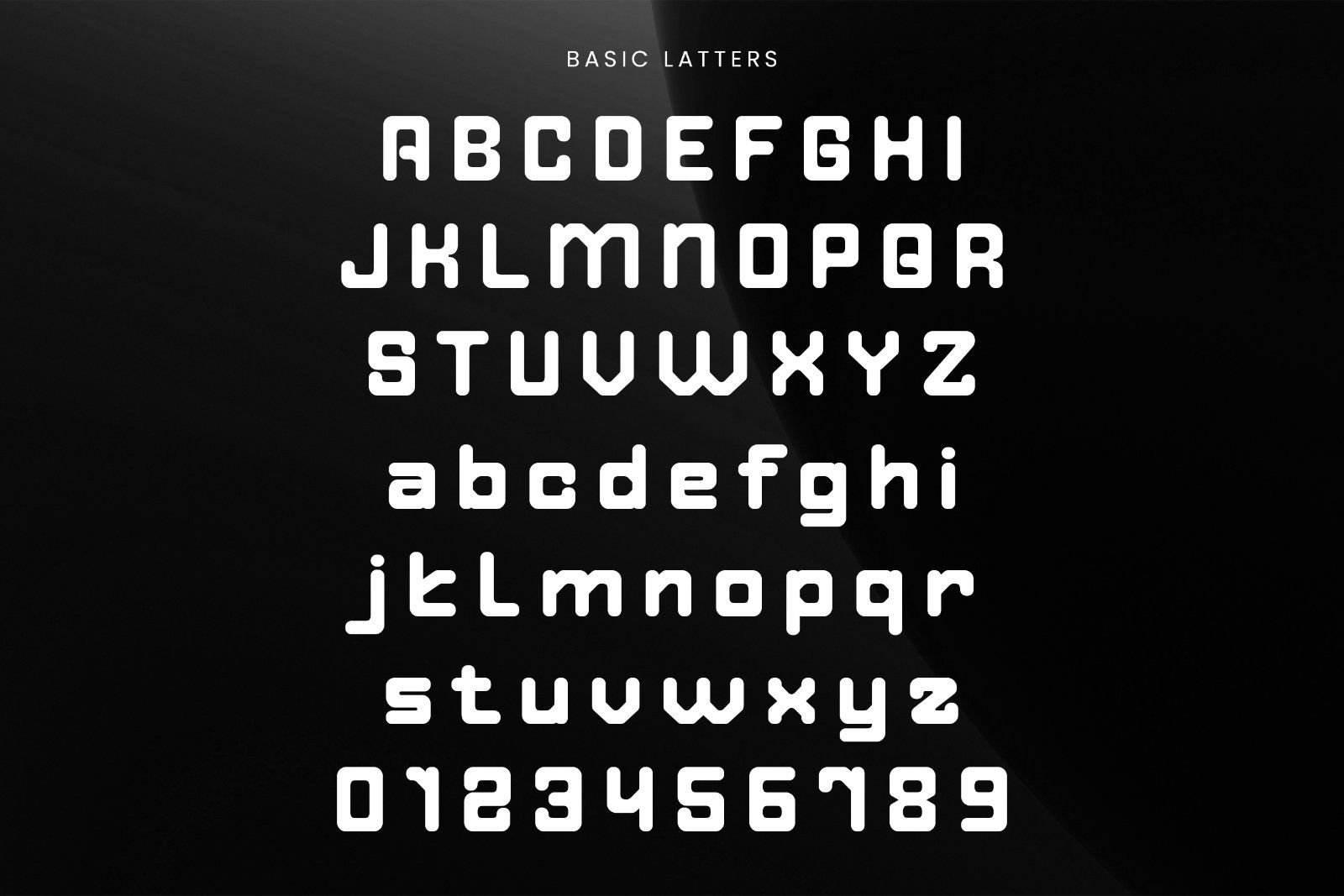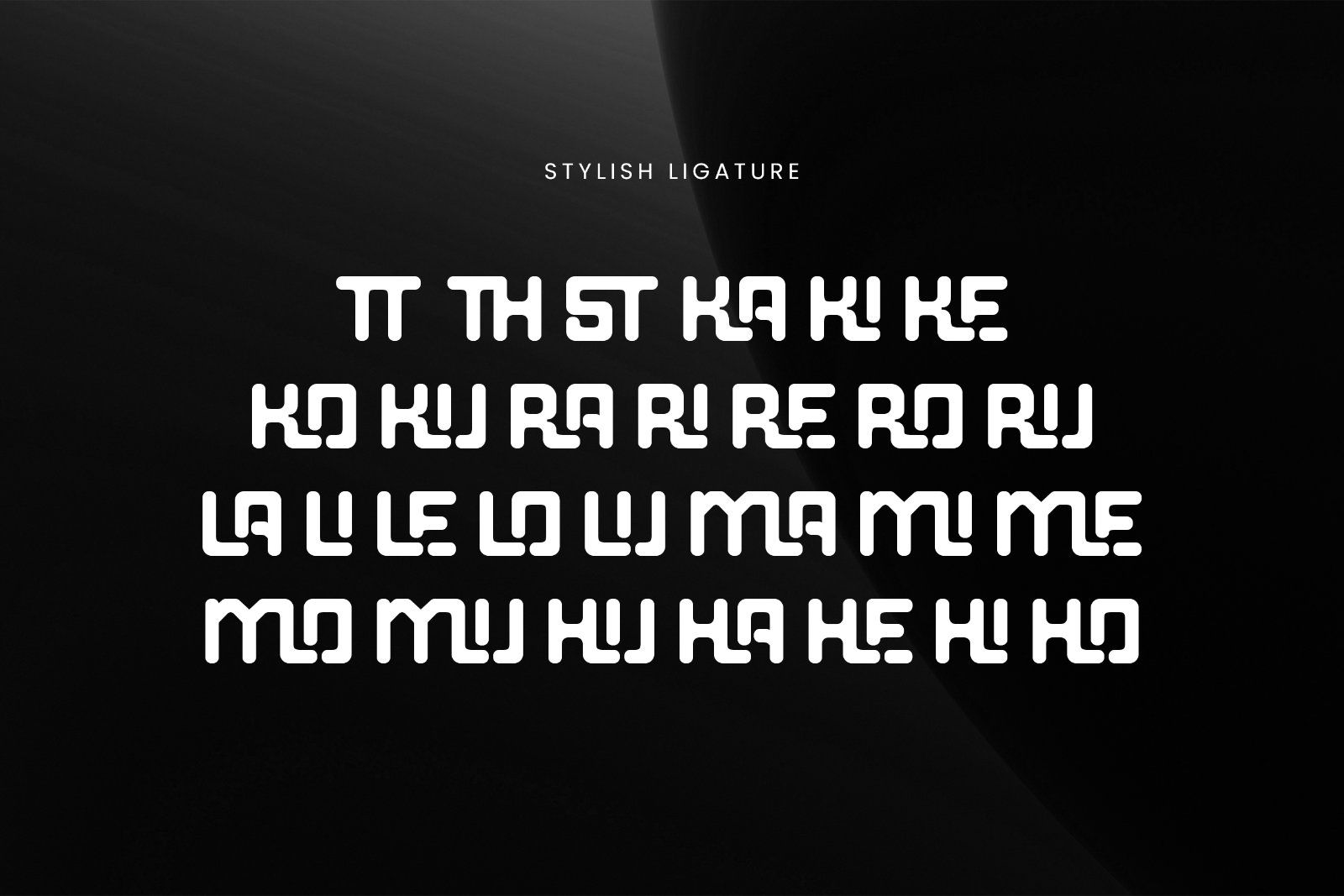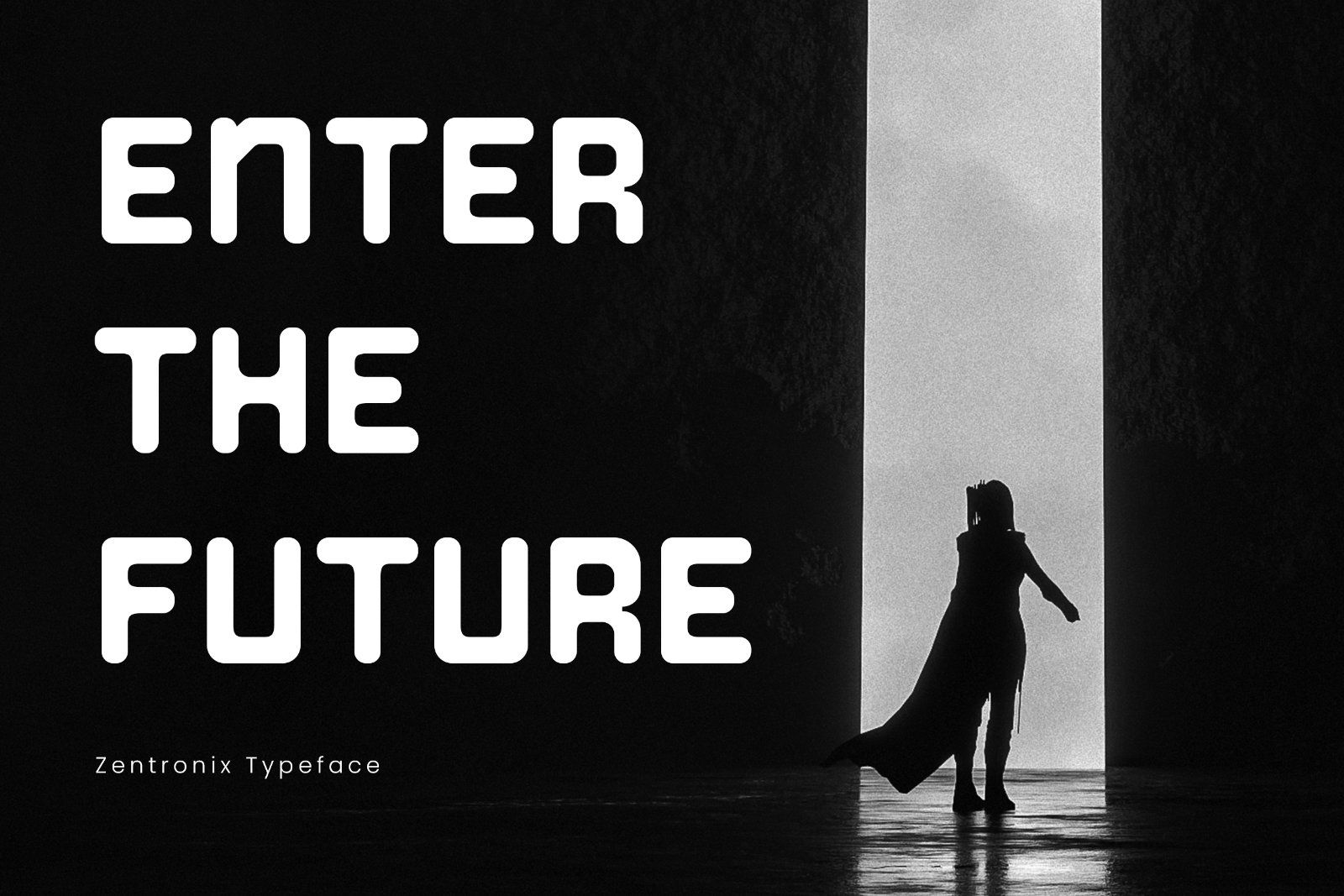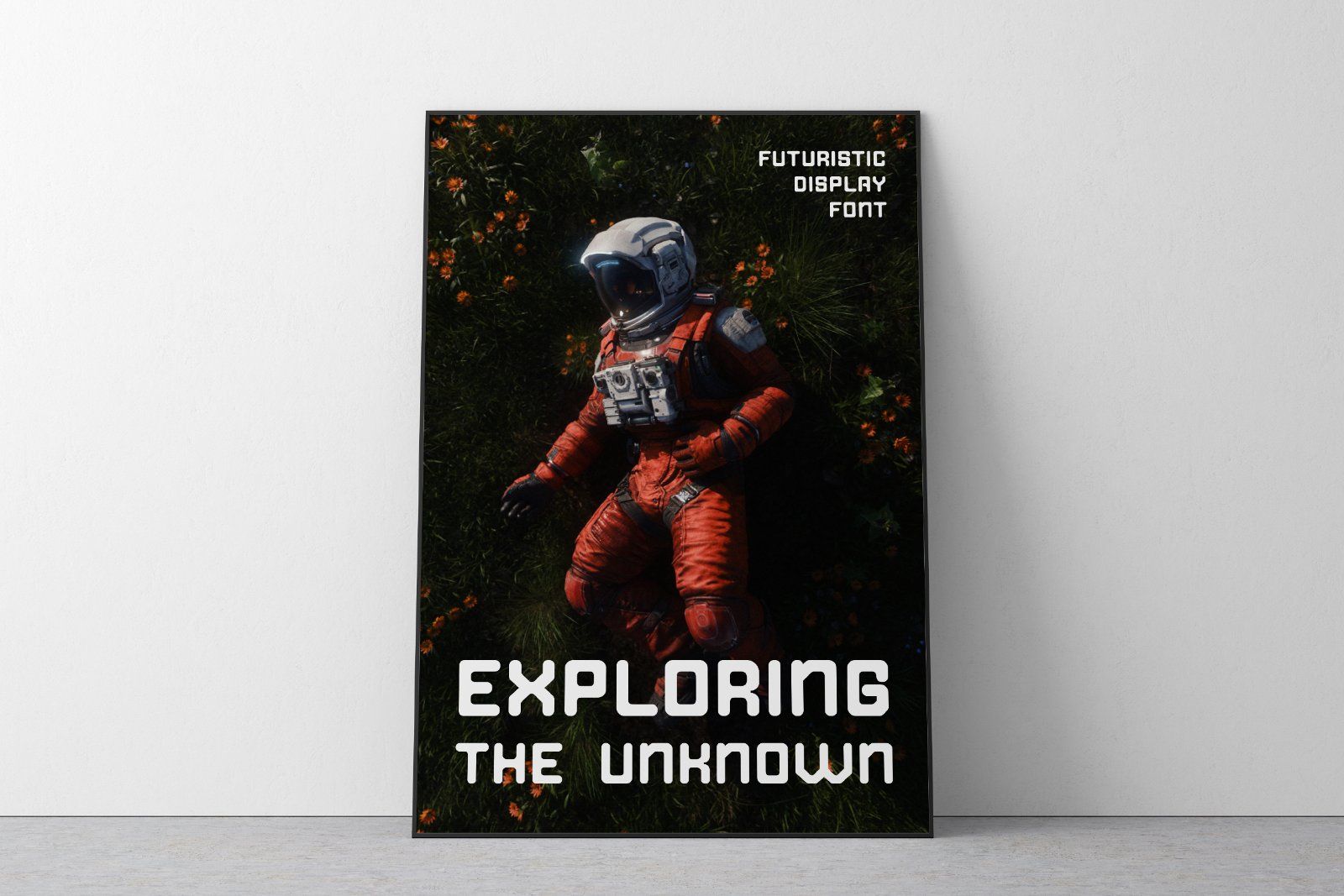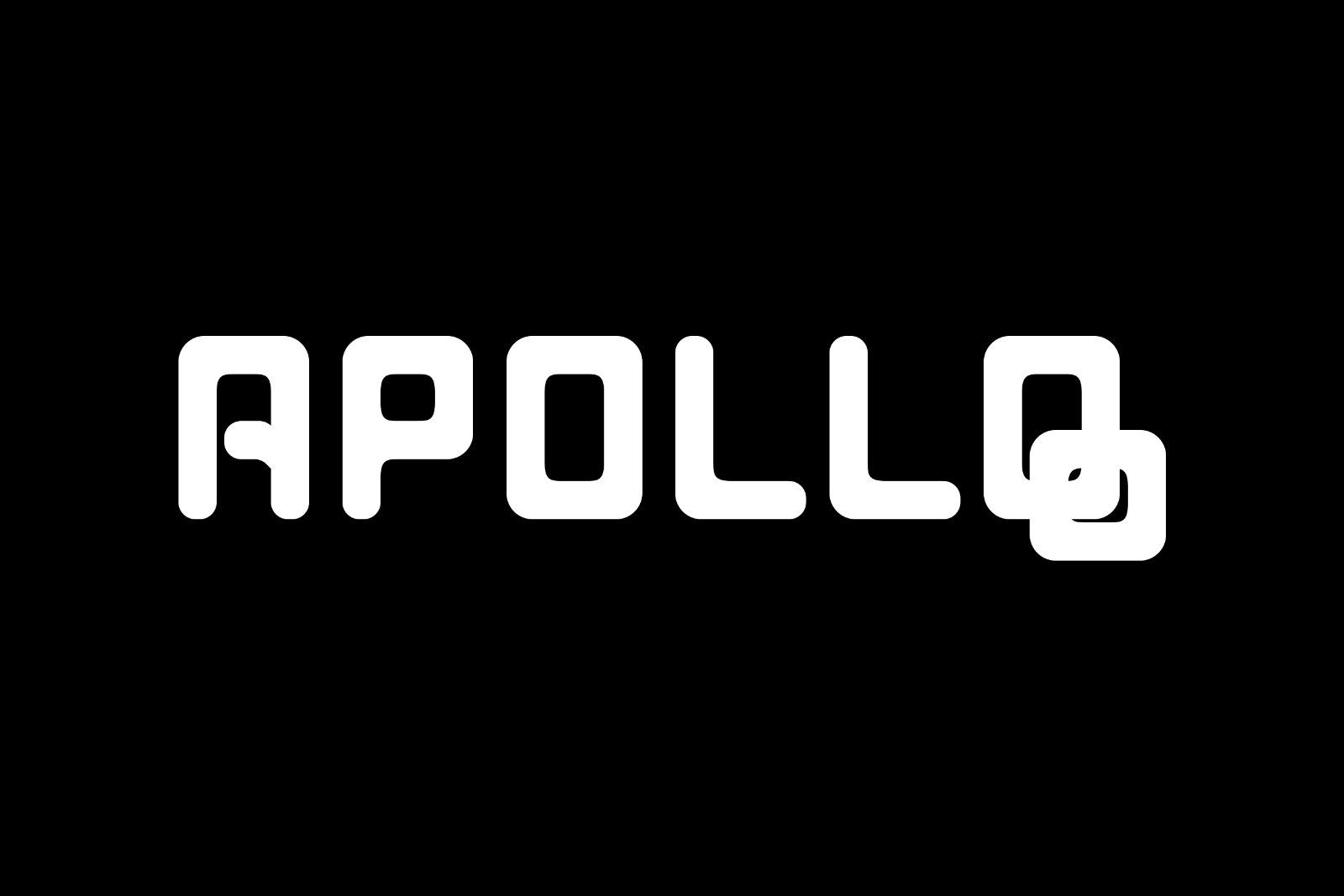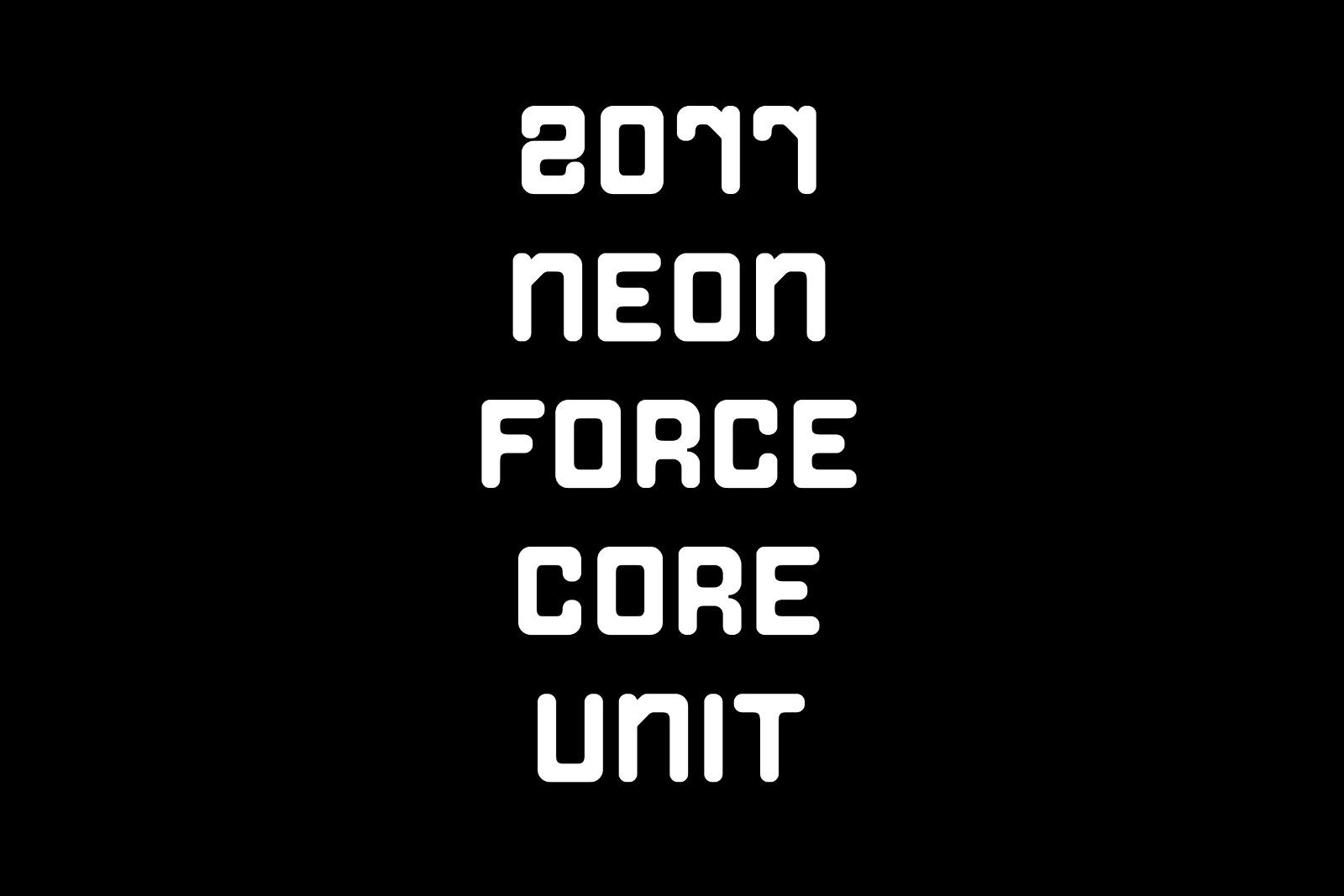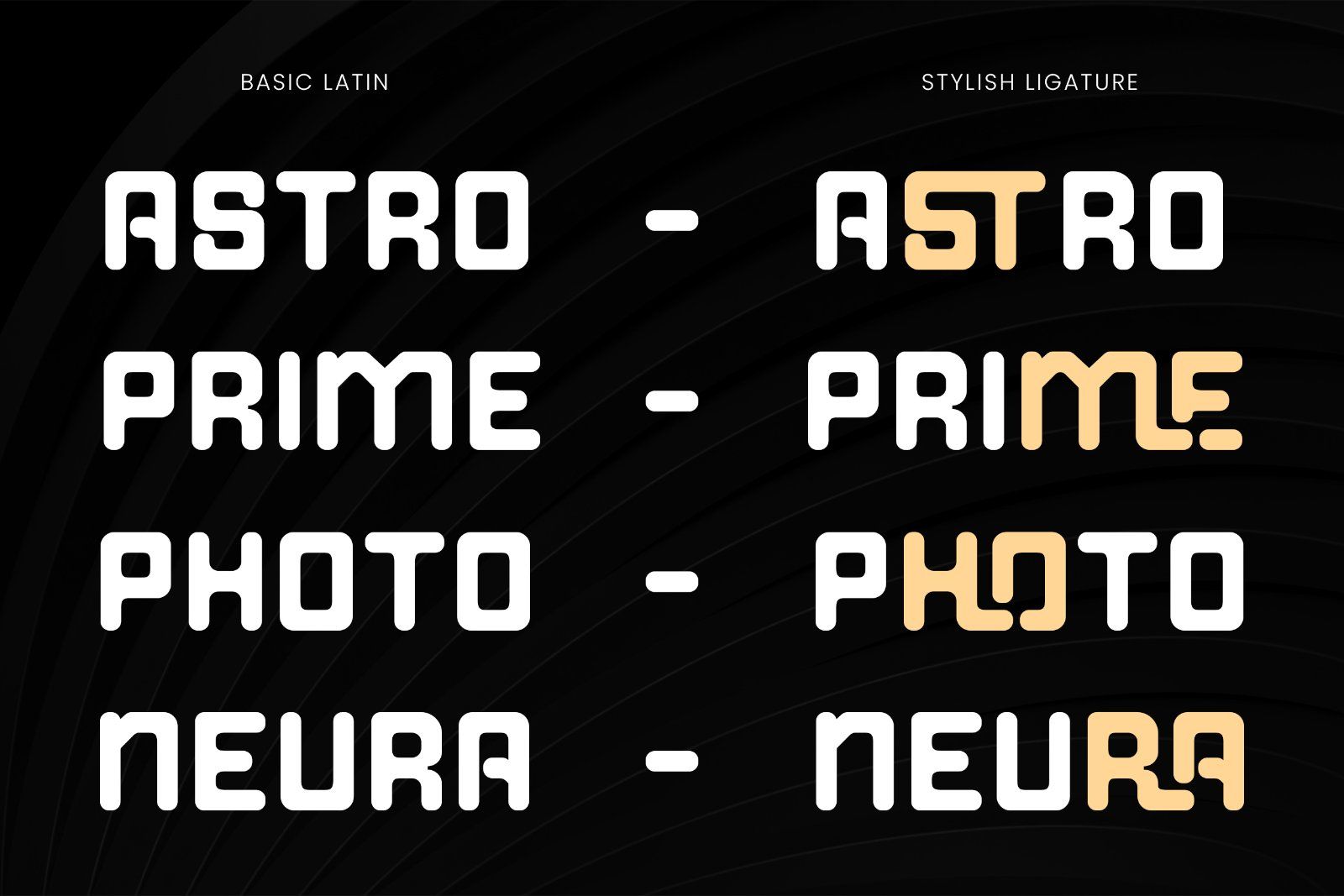
Zentronix is a futuristic industrial display font crafted to bring a bold, modern, and high-tech feel into your design projects. Designed with clean geometric shapes and smooth rounded edges, this typeface delivers a strong visual impact while maintaining excellent readability.
Perfect for branding, posters, tech visuals, sci-fi themes, gaming designs, UI/UX, and digital products, Zentronix stands out with its unique character forms and stylish ligatures that enhance creativity and flexibility.
This font is built for designers who want to create eye-catching and futuristic visuals without sacrificing clarity and professionalism.
✨ Features:
Uppercase & Lowercase characters
Numbers & Punctuation
Stylish Ligatures
Clean & Modern Design
Futuristic & Industrial Style
📦 Suitable For:
Branding & Logo Design
Posters & Covers
Tech & Sci-Fi Projects
Gaming Graphics
UI/UX Design
Social Media Content
Digital & Print Design
Zentronix is more than just a font — it's a visual identity tool to elevate your futuristic creations.